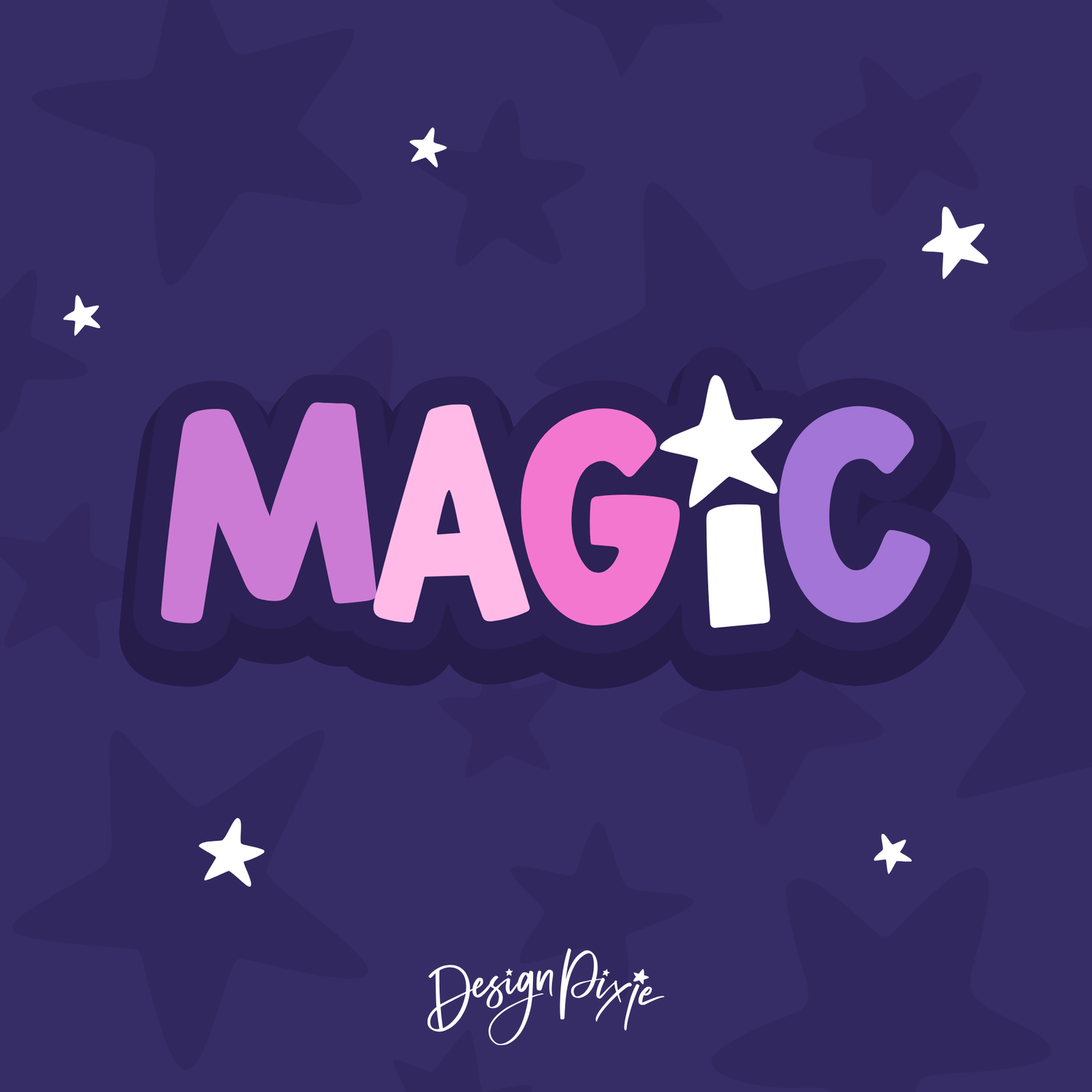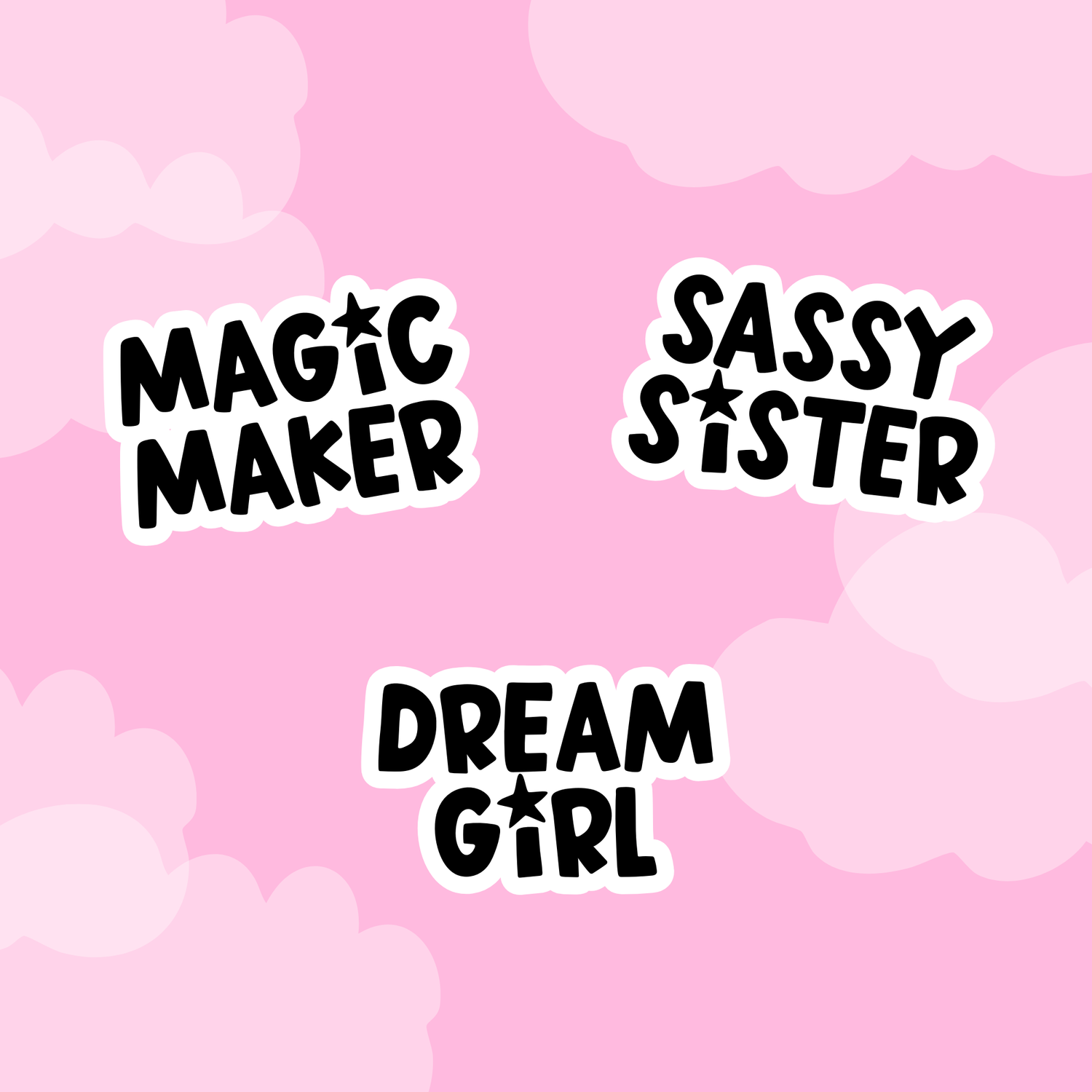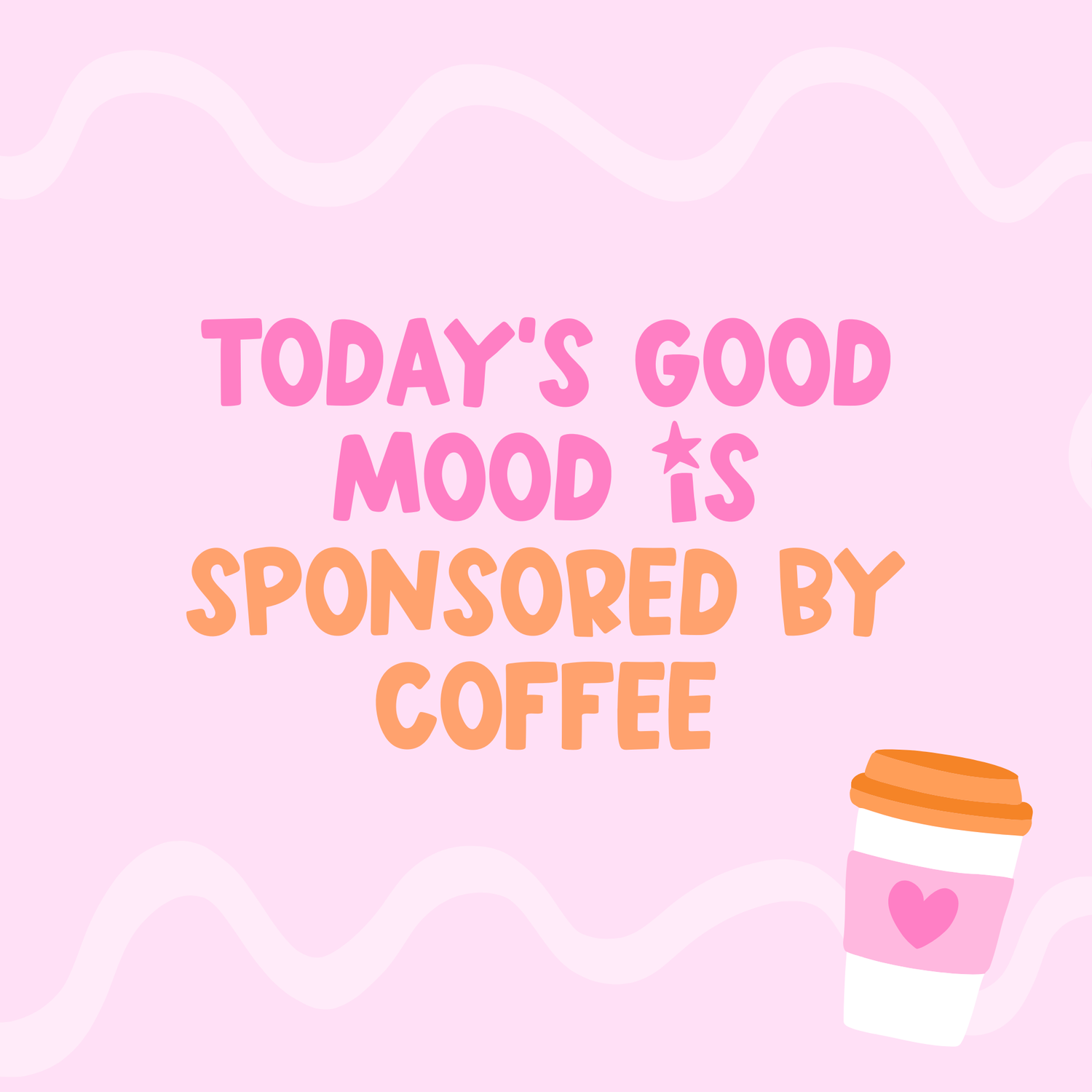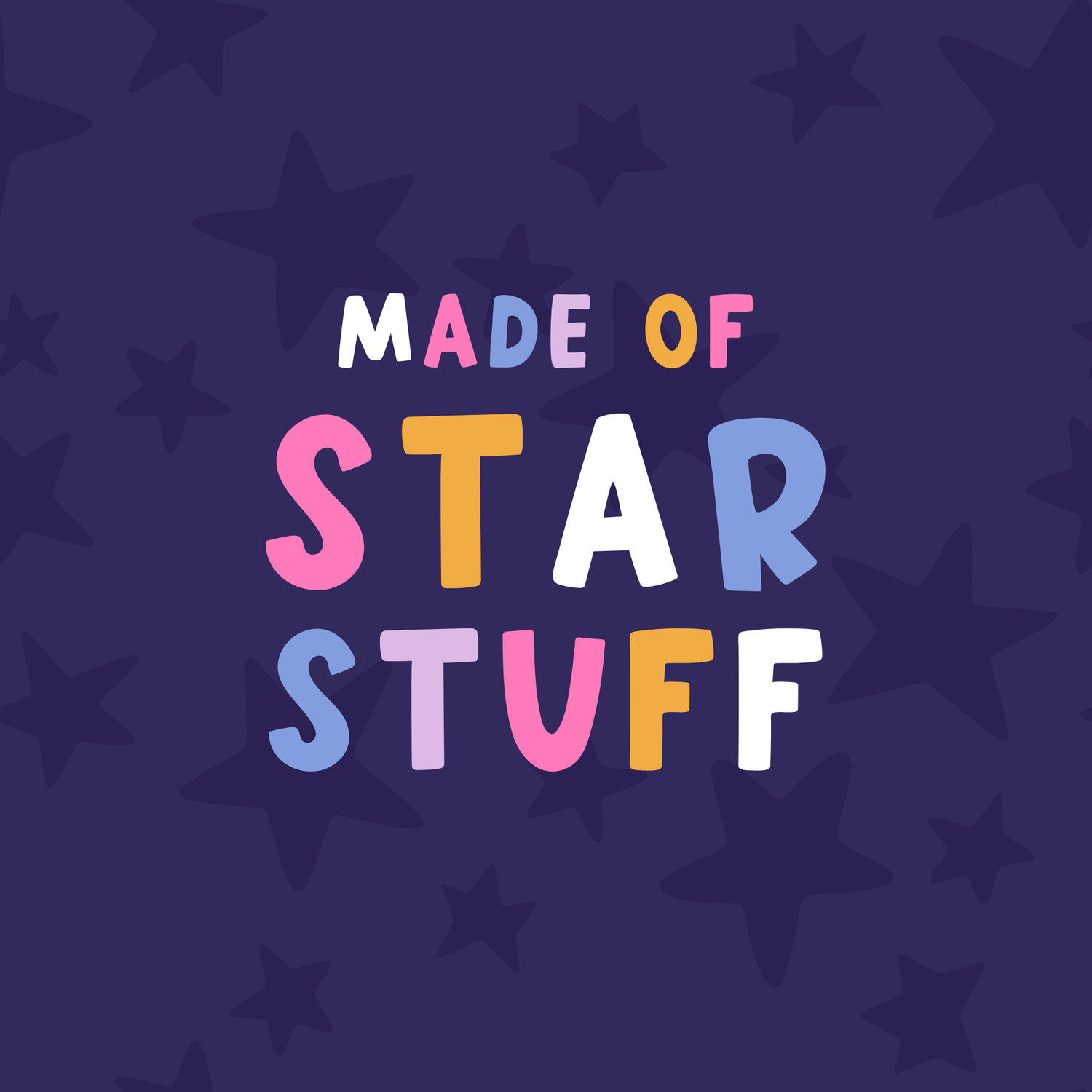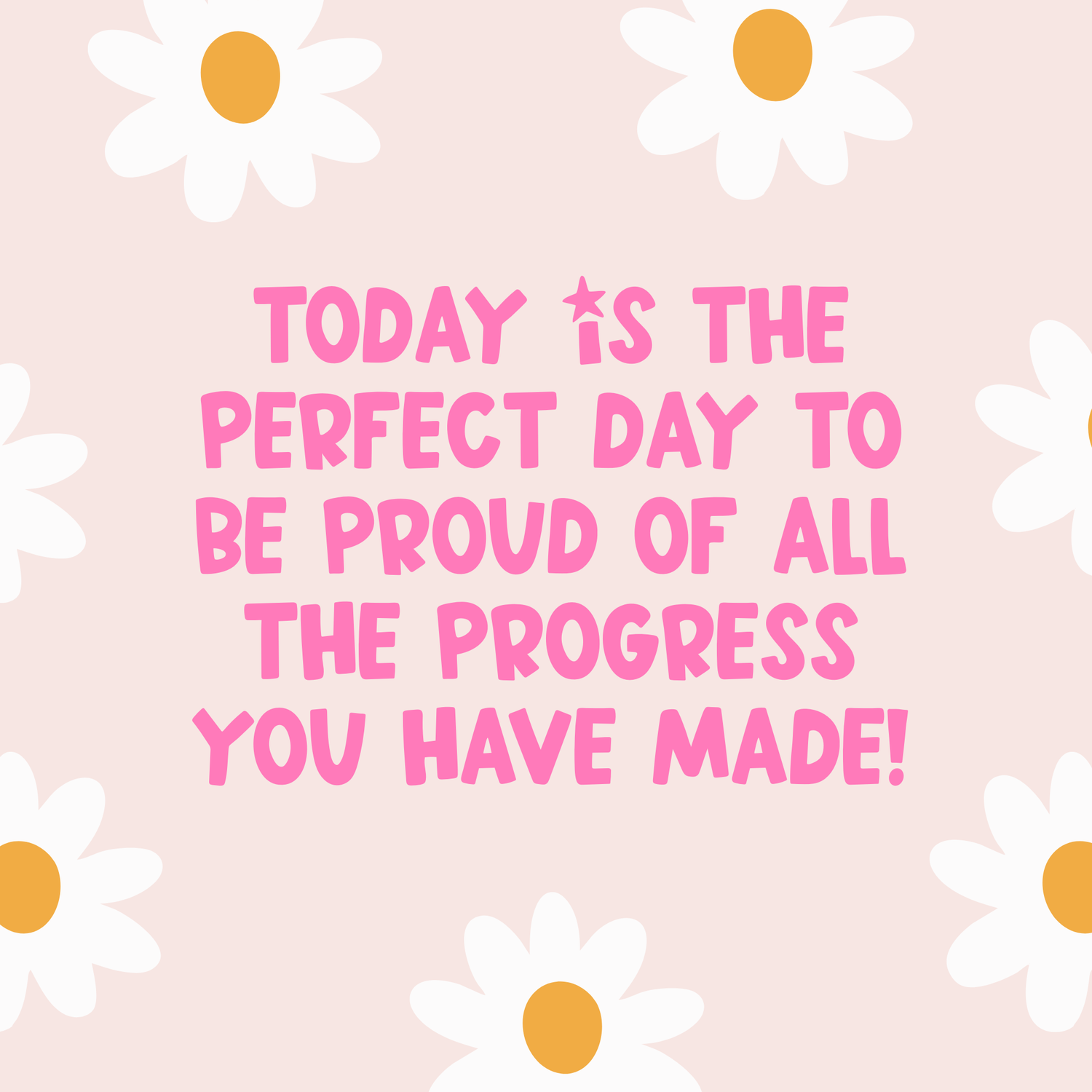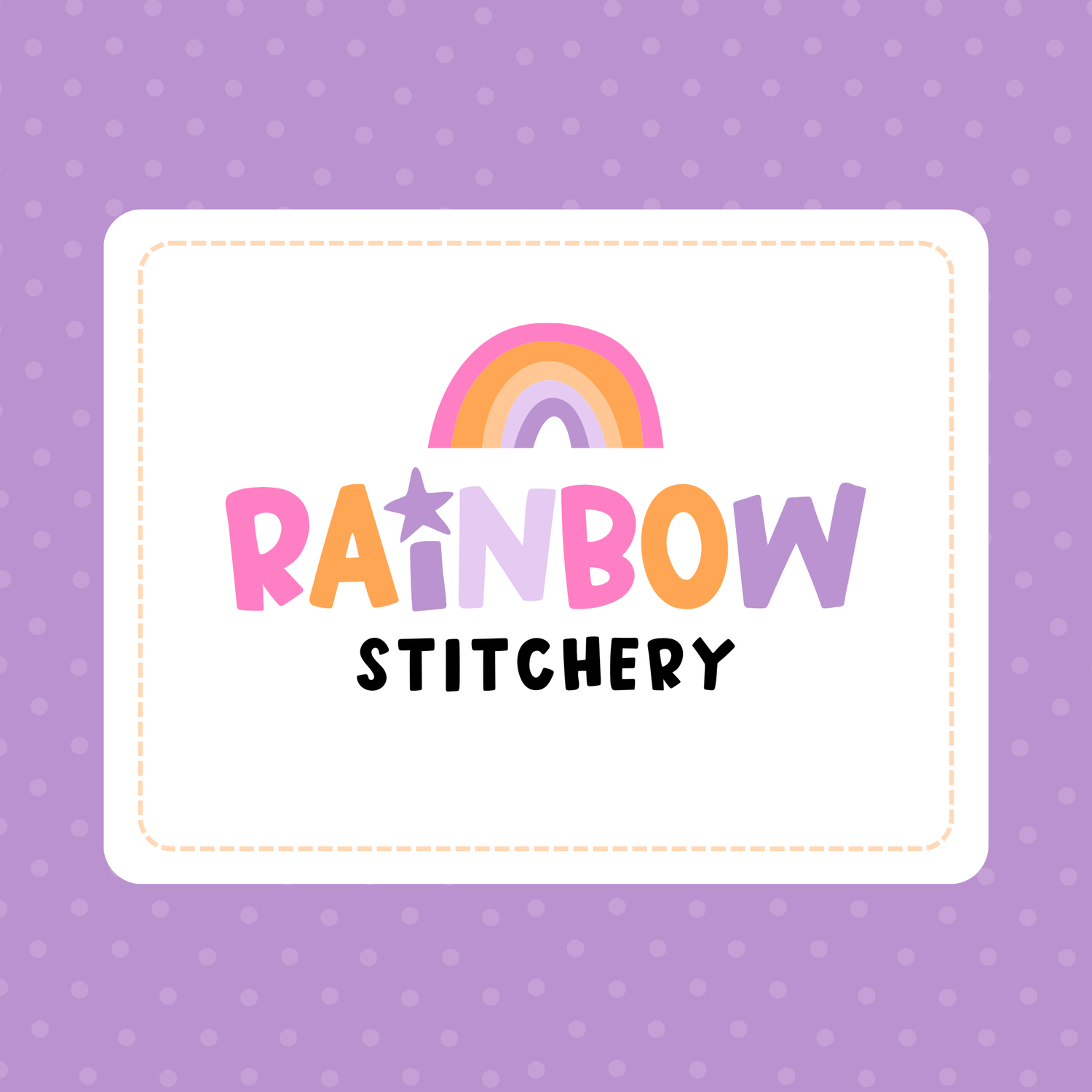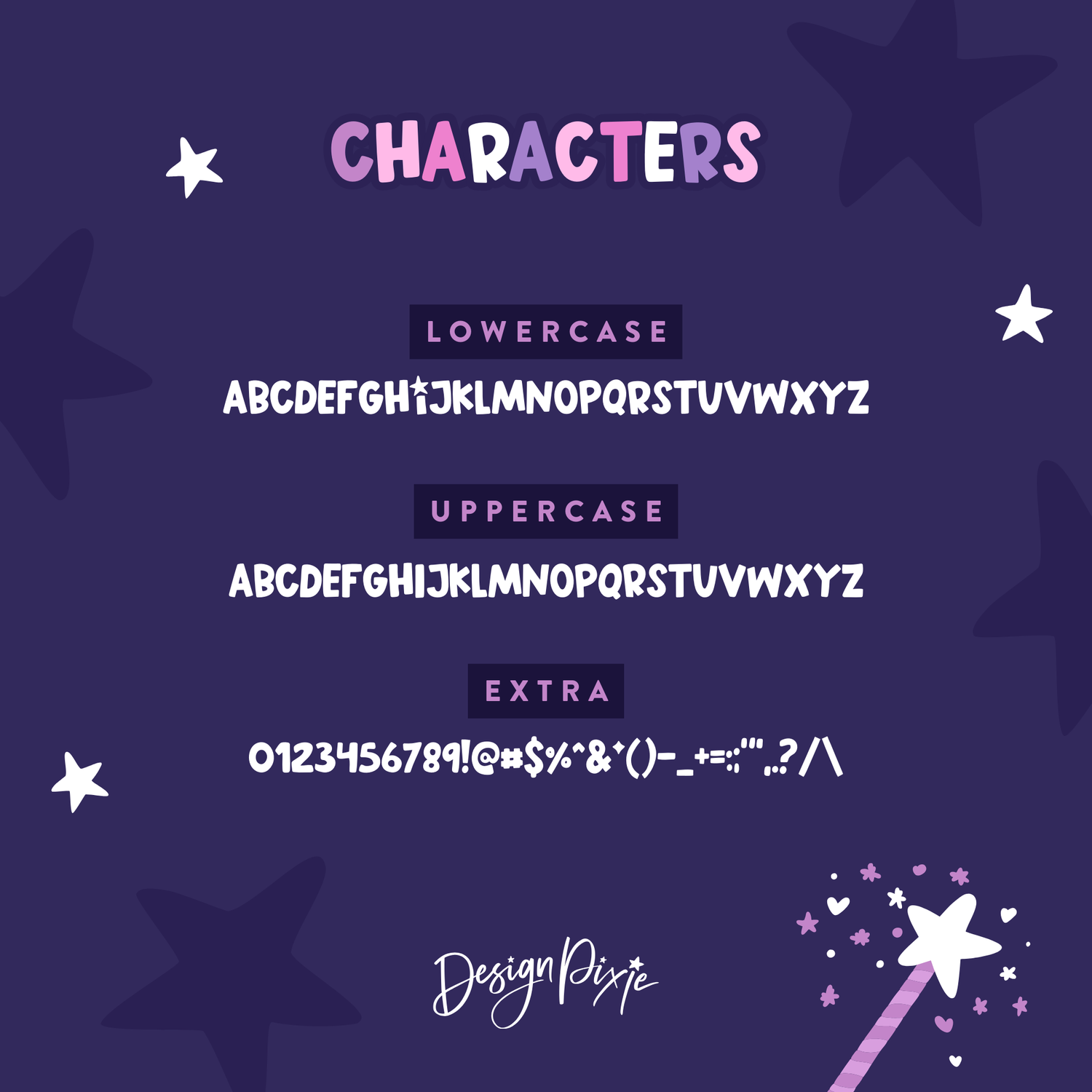
Magic Font
Add a little sparkle to your designs with Magic - a bold, bouncy handwritten font with a cute twist! The playful star on the i makes it stand out and brings instant personality to your projects.
Perfect for:
- Cute stickers & labels
- Lettering quotes for Instagram & Pinterest
- Sassy apparel & tumbler designs
- Fun branding
- Greeting cards, planners & more!
With its chunky, rounded letters and cheerful bounce, Magic is your go-to font for creating designs that feel bold, girly, and oh-so-fun. Whether you’re crafting stickers for your shop, designing social media posts, or adding flair to your business branding, this font brings the charm every time.